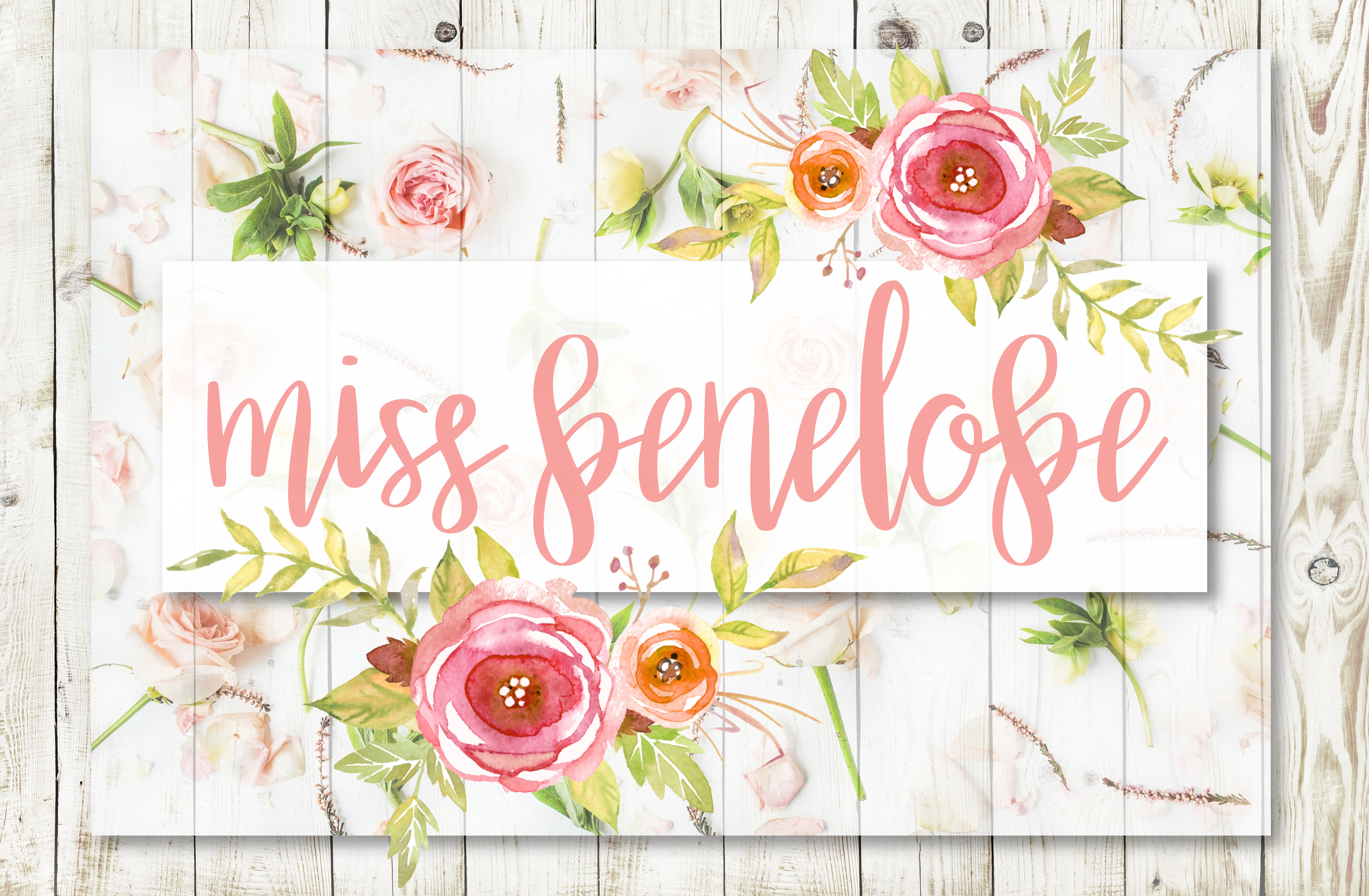
Miss Penelope Script Font
Introducing a fancy but not serious handwritten script font-Miss Penelope!
Perfect for greeting cards, branding, stationery, social media, scrapbooking, prints and more!
Miss Penelope has: 10 initial characters, and 3 standard ligatures.